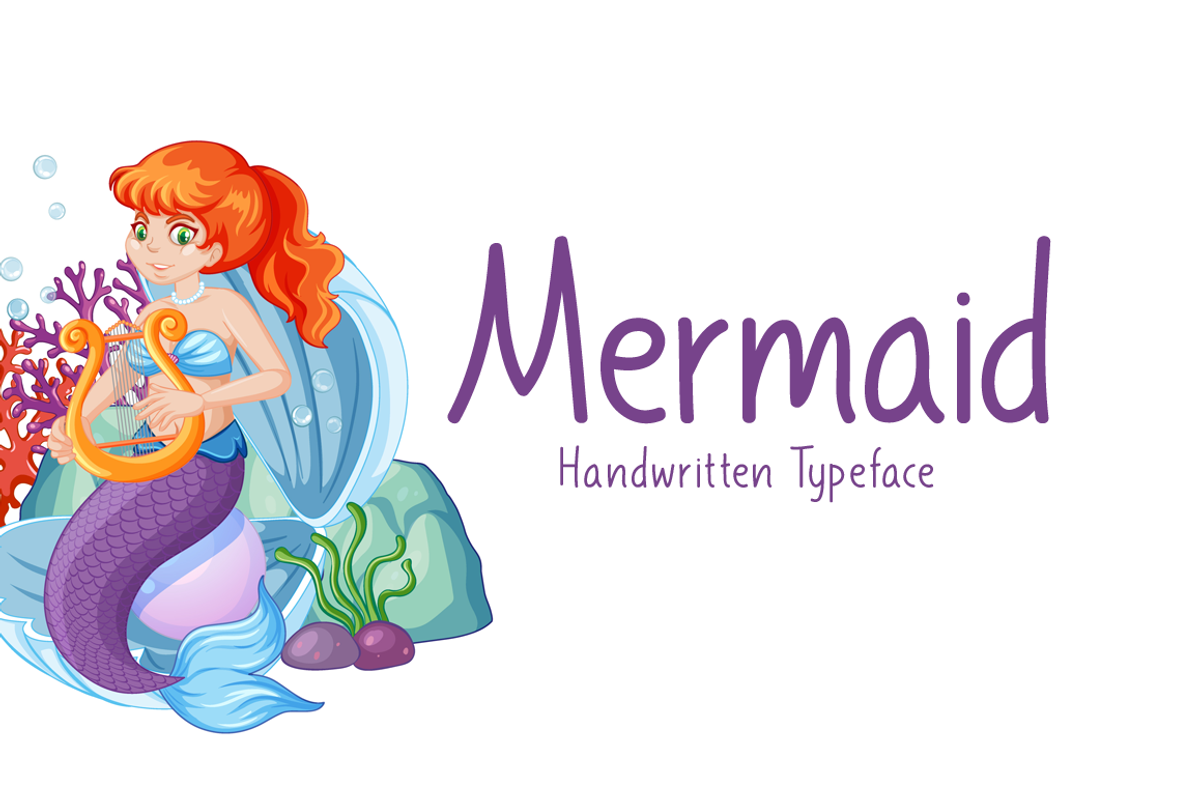
Mermaid Typeface Free Download is a whimsical and enchanting font inspired by ocean magic and underwater fantasy. With fluid curves, playful shapes, and a soft, dreamy style, this typeface is perfect for kids’ designs, fairytale-themed projects, mermaid party invitations, storybook covers, and magical branding. It captures the spirit of the sea with elegance and imagination.
Using the Mermaid Typeface Free Download gives your designs a touch of fantasy and wonder. Whether you're creating visuals for a children's product, an aquatic-themed event, or dreamy digital content, this font adds charm and creative flair that feels straight out of a mythical ocean world.